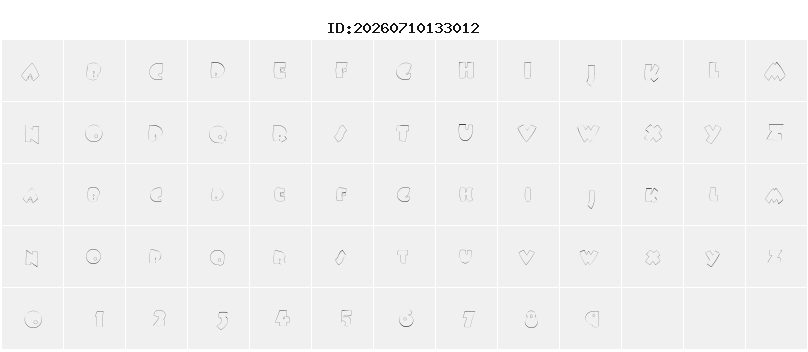
FatsoOutlineThin Preview
• Font Name: FatsoOutlineThin
• Font ID: SWFTE:FatsoOutlineThin Regular
• Full Font Name: FatsoOutlineThin
• Version: Rev. 003.000
• PostScript Name: FatsoOutlineThinRegularSWFTE
• Character Count: 234
About FatsoOutlineThin.ttf
FatsoOutlineThin.ttf is a modern, elegant sans-serif font designed for ultimate readability and visual harmony. Perfect for branding, headlines, web design, and print materials.